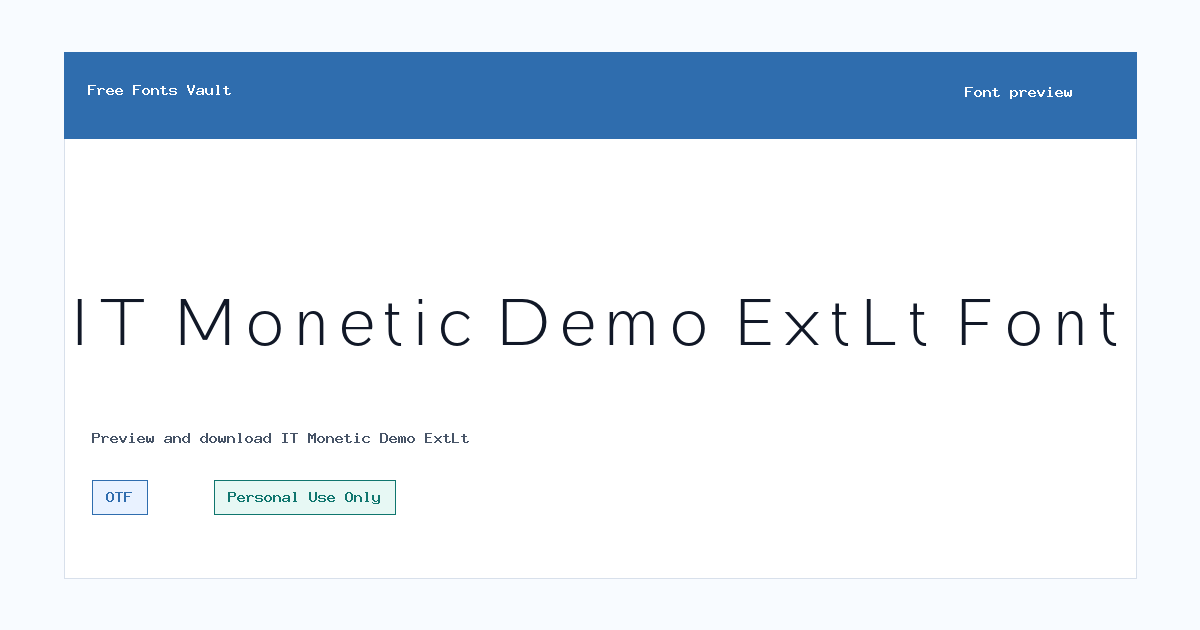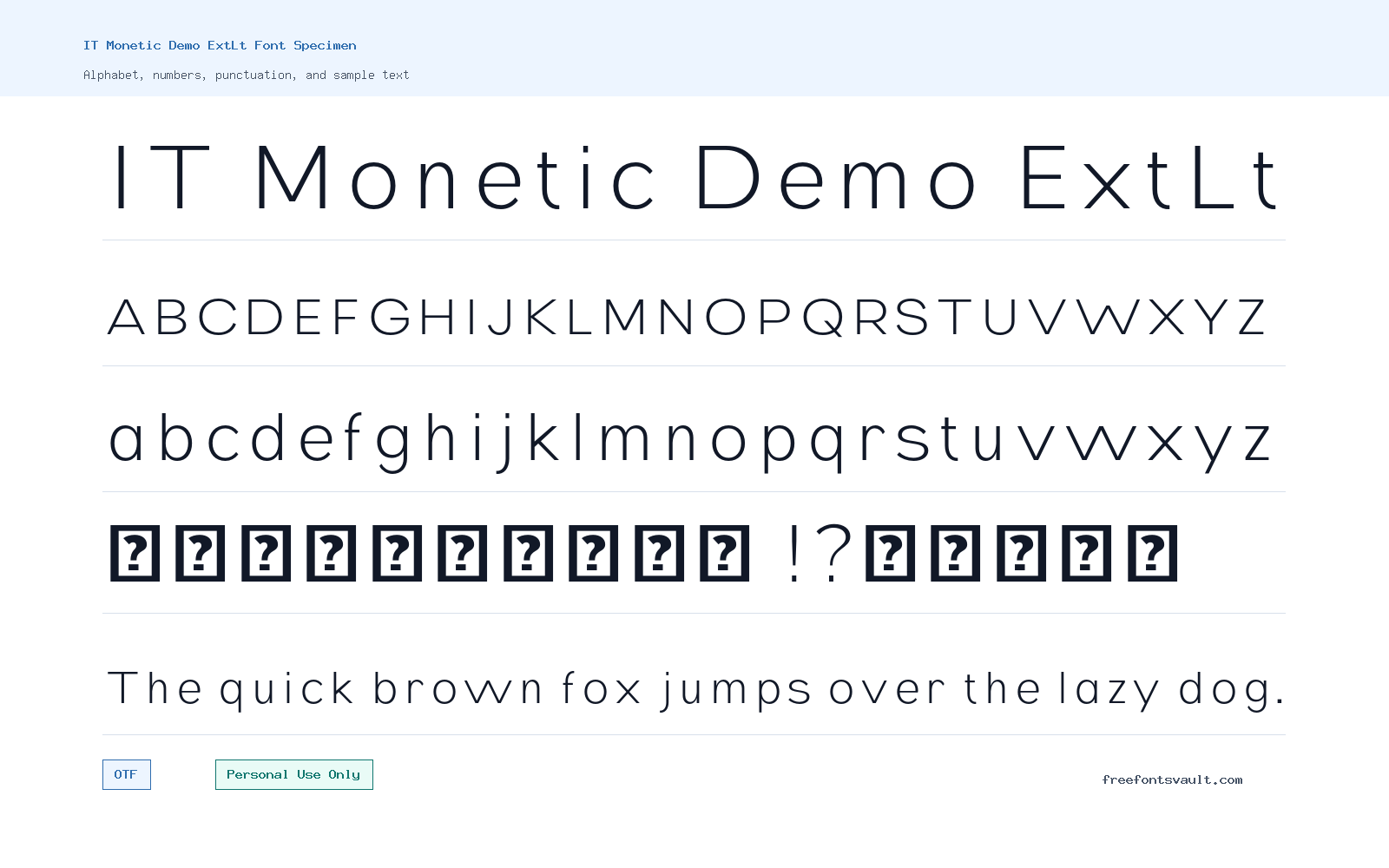
IT Monetic Demo ExtLt
- Designer Indotype
- Foundry Indotype Foundry
IT Monetic Demo ExtLt font.
IT Monetic Demo ExtLt is a light-weight sans serif demo font with an ExtraLight style, made for clean display testing, simple layouts, and personal design experiments.
About IT Monetic Demo ExtLt Font
IT Monetic Demo ExtLt gives you the thinnest side of the IT Monetic Demo family, with a 300-weight OTF file in a normal upright style. Because it is an ExtraLight sans serif, it is best judged through real text in the preview tool rather than by name alone. Thin letterforms can look elegant in large sizes, but they also need enough contrast, spacing, and background clarity to stay readable. Try it with short headings, minimal titles, nameplates, fashion-style layouts, portfolio covers, or simple poster text where the light stroke can breathe.
For logo work, IT Monetic Demo ExtLt may be useful at the concept stage when you want a restrained, modern-looking wordmark without heavy visual weight. Keep the testing practical: view the letters at small and large sizes, check how tight letter pairs behave, and compare it against a heavier companion font before committing to a design direction. ExtraLight fonts can disappear on busy images, low-resolution previews, or small mobile screens, so avoid relying on it for body copy, dense menus, captions, or long paragraphs. It is better suited to short text, spacious compositions, and mockups where the type has enough room around it.
- ExtraLight 300-weight sans serif style for clean, airy display text.
- Works best in large sizes where the thin strokes remain visible.
- Useful for headings, poster titles, web mockups, and early logo concept exploration.
- Minimal poster titles and clean display headings
- Personal branding drafts and logo concept tests
- Portfolio covers, mood boards, and presentation mockups
- Website hero text in non-commercial mockups
- Short labels, nameplates, and elegant title treatments
The font is credited to Indotype, with Indotype Foundry listed as the foundry.
Test IT Monetic Demo ExtLt at the size you actually plan to use. Thin sans serif fonts often look best with generous spacing, plain backgrounds, and strong contrast. For pairing, use a sturdier sans serif or a readable serif for body text, then keep IT Monetic Demo ExtLt for the main title or accent line. In posters and web mockups, avoid placing it over detailed photos unless you add enough contrast behind the text. For logo concepts, check the wordmark in black, white, and small-size previews before deciding whether the ExtraLight weight is strong enough.
What weight is IT Monetic Demo ExtLt?
It is listed with a 300 font weight, which matches an ExtraLight style.
Is this font good for body text?
It is not the best choice for long body text. The ExtraLight weight is better for short display text, headings, and spacious layouts.
Who designed IT Monetic Demo ExtLt?
The font is credited to Indotype, with Indotype Foundry listed as the foundry.